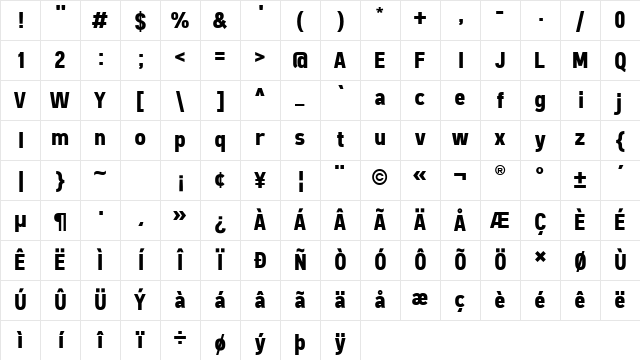
Freeroad Bold Free Font
Freeroad Bold
Designer: Jayvee D. Enaguas (Grand Chaos)
Design Context for Freeroad
Freeroad is a composed and adaptable typeface that performs quietly and consistently across a wide range of design contexts. Its bold stroke weight gives it real presence on the page.